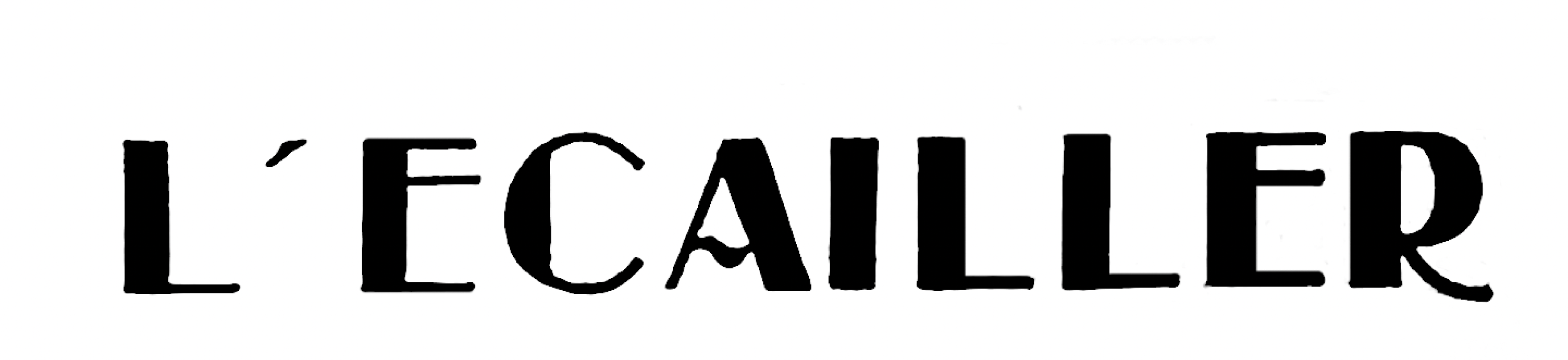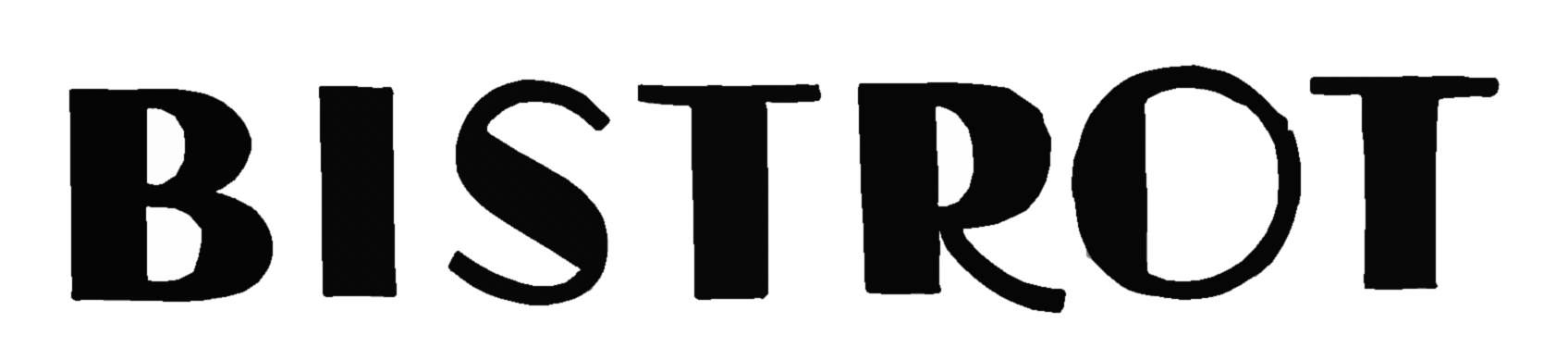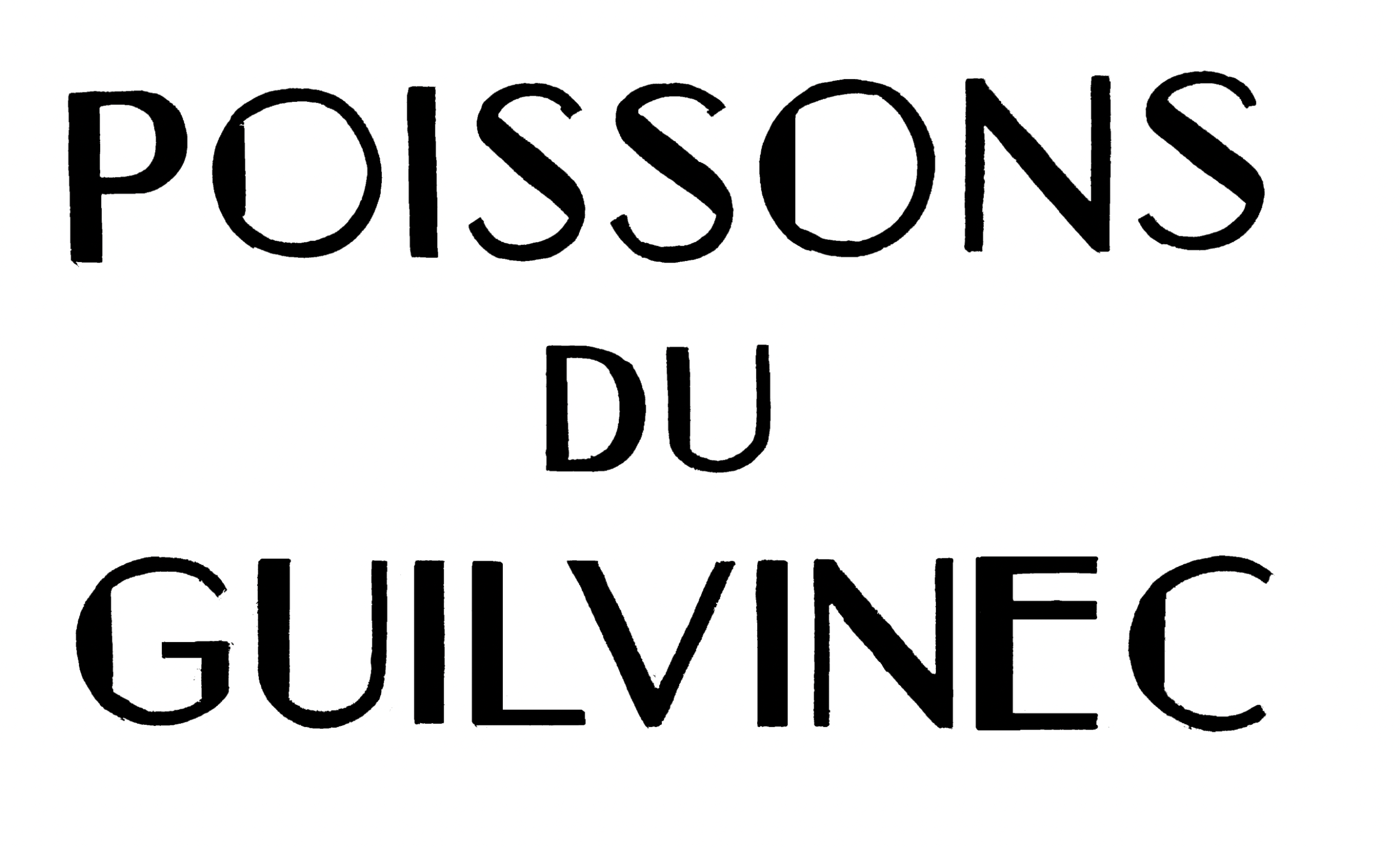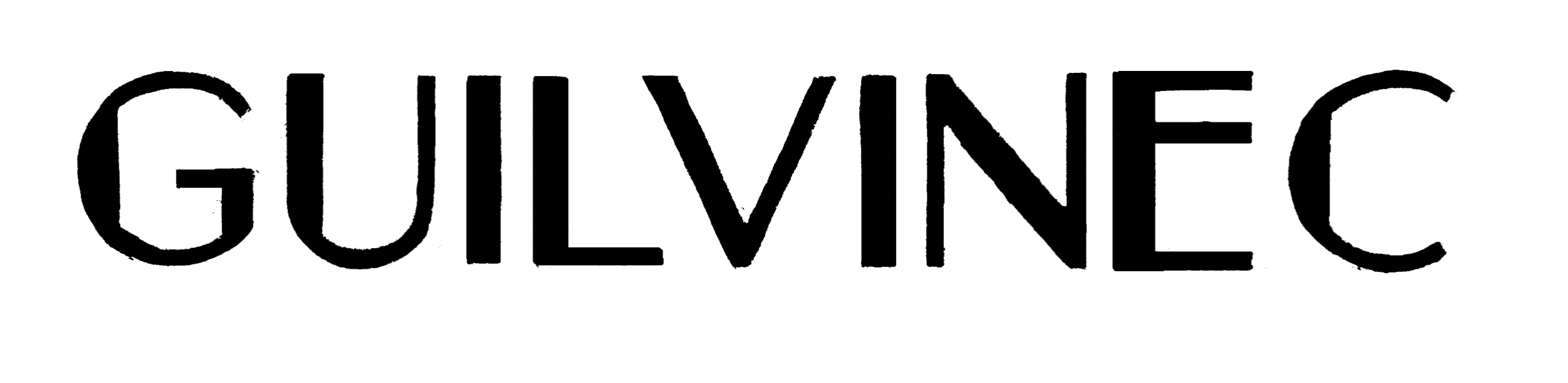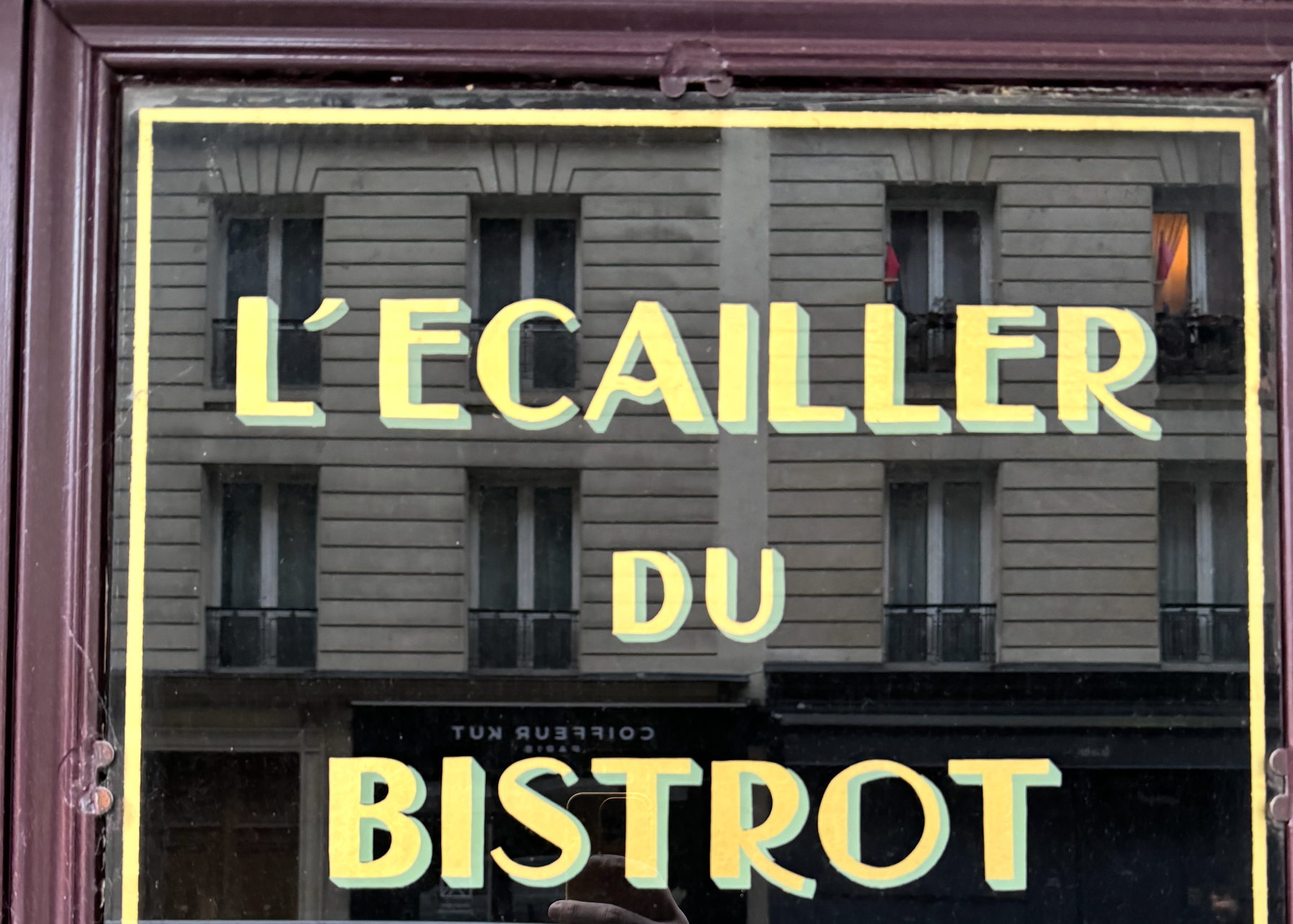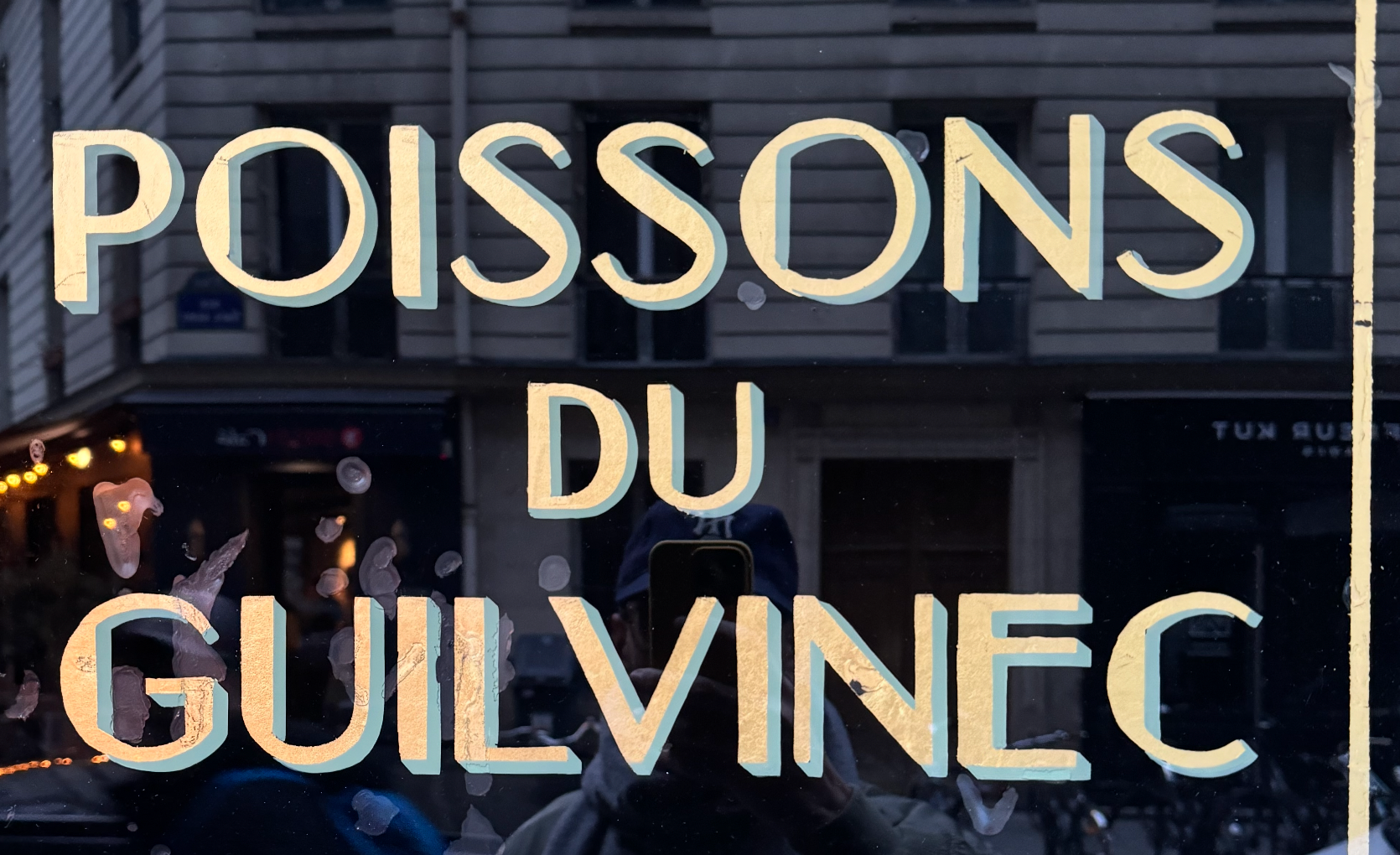
Looking for this HandPainted Parisian Bistrot Font Modern era
Here is a lot of signs handpainted for a Parisian Bistrot. "L'écailler du bistrot"
Definitely coming from an alphabet, it's a mixed between broadway, biner etc
Everything is in the A H and the R !
used a model from some sign painting manual
That's for sure a possibility!
That's why I said that, might someone with that type of knowledge here, or a font that has been then made from a manual